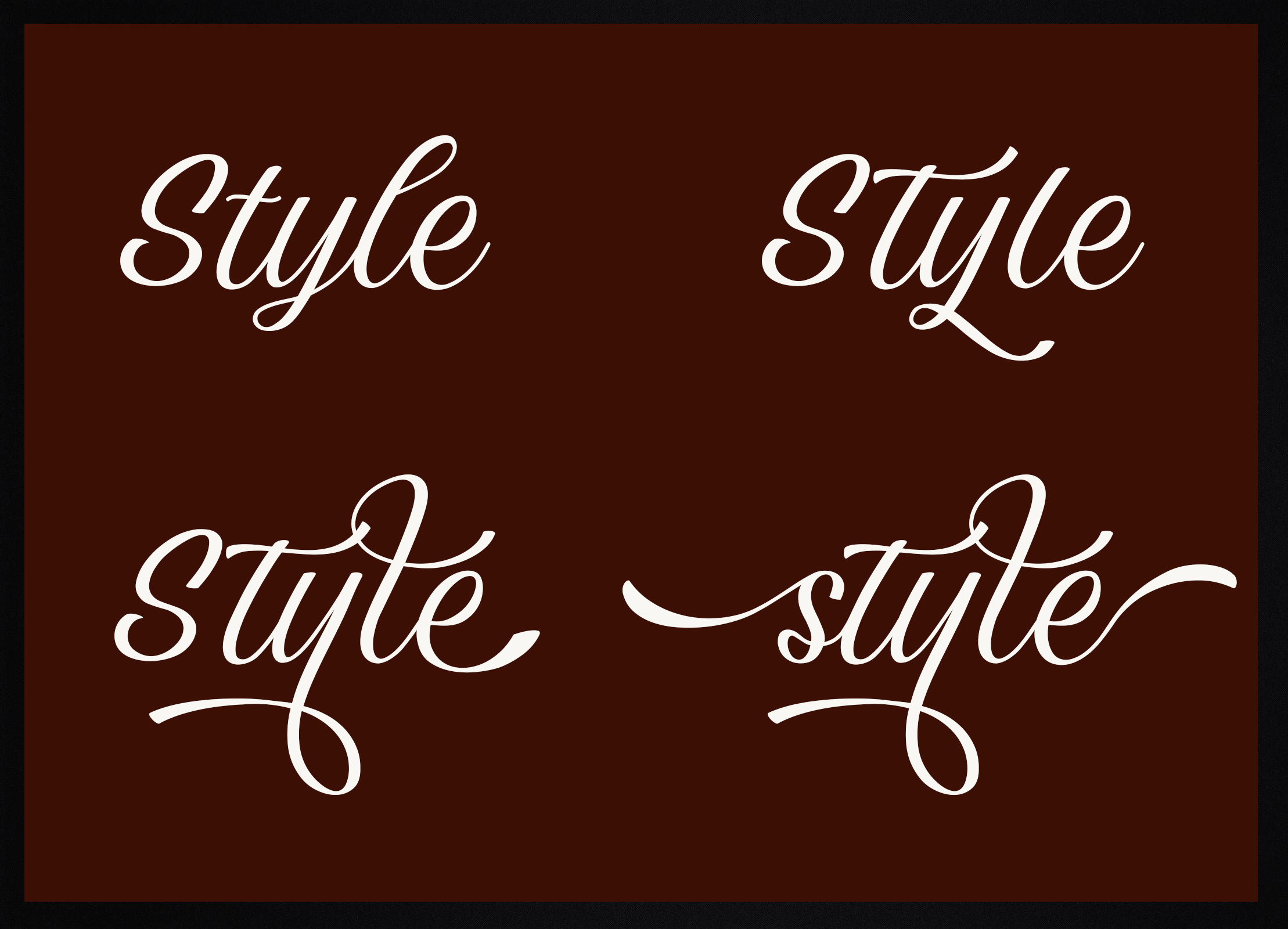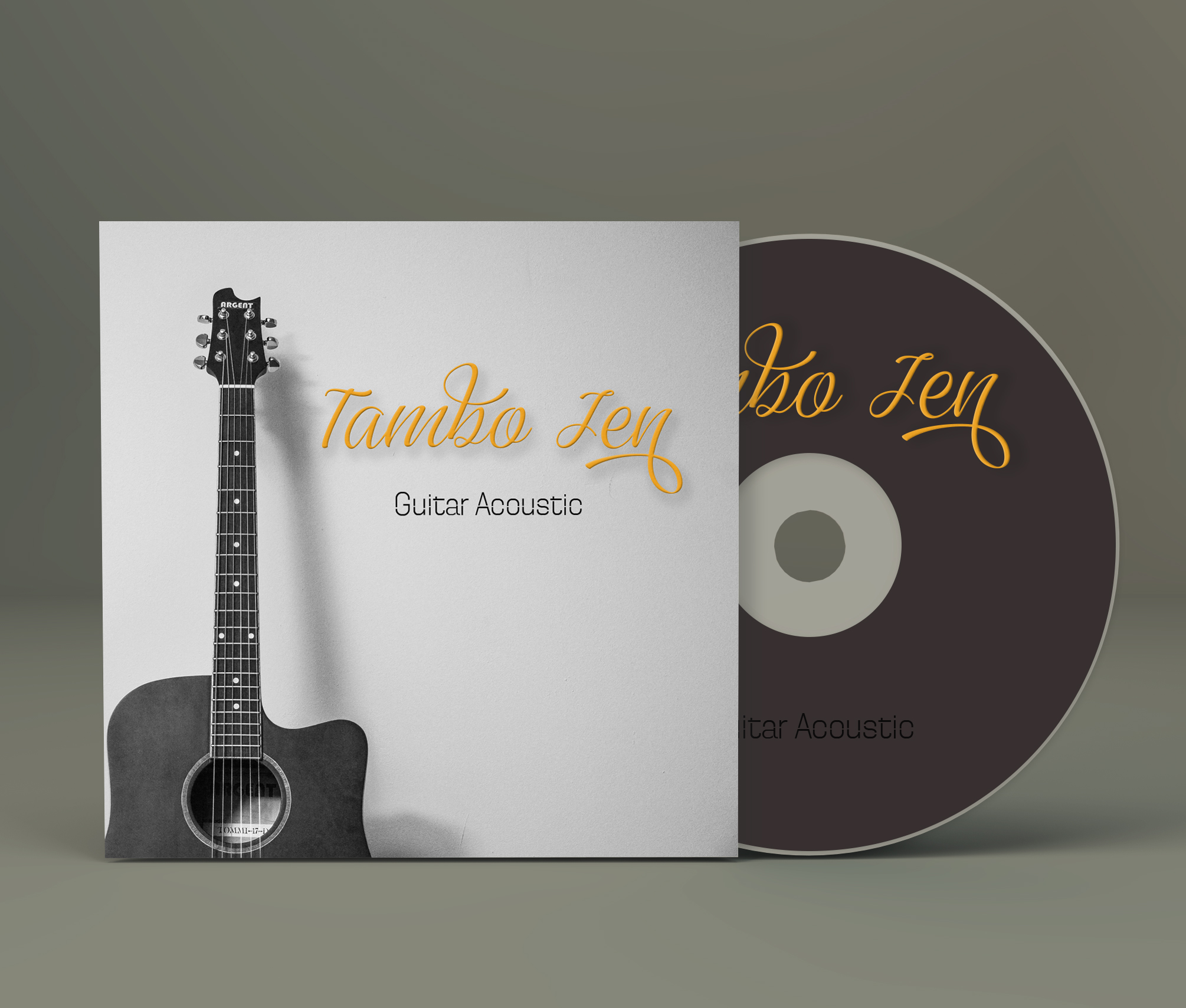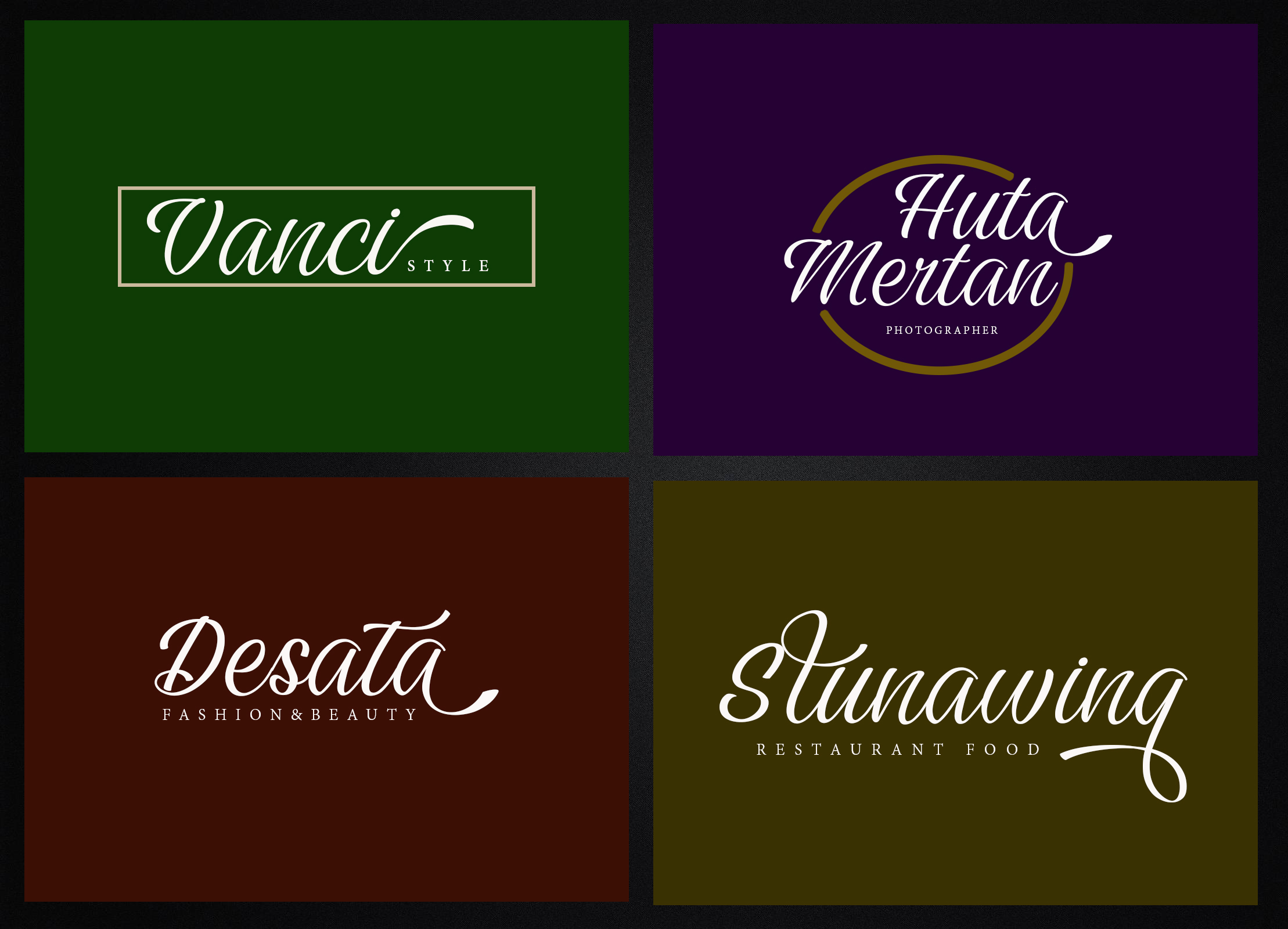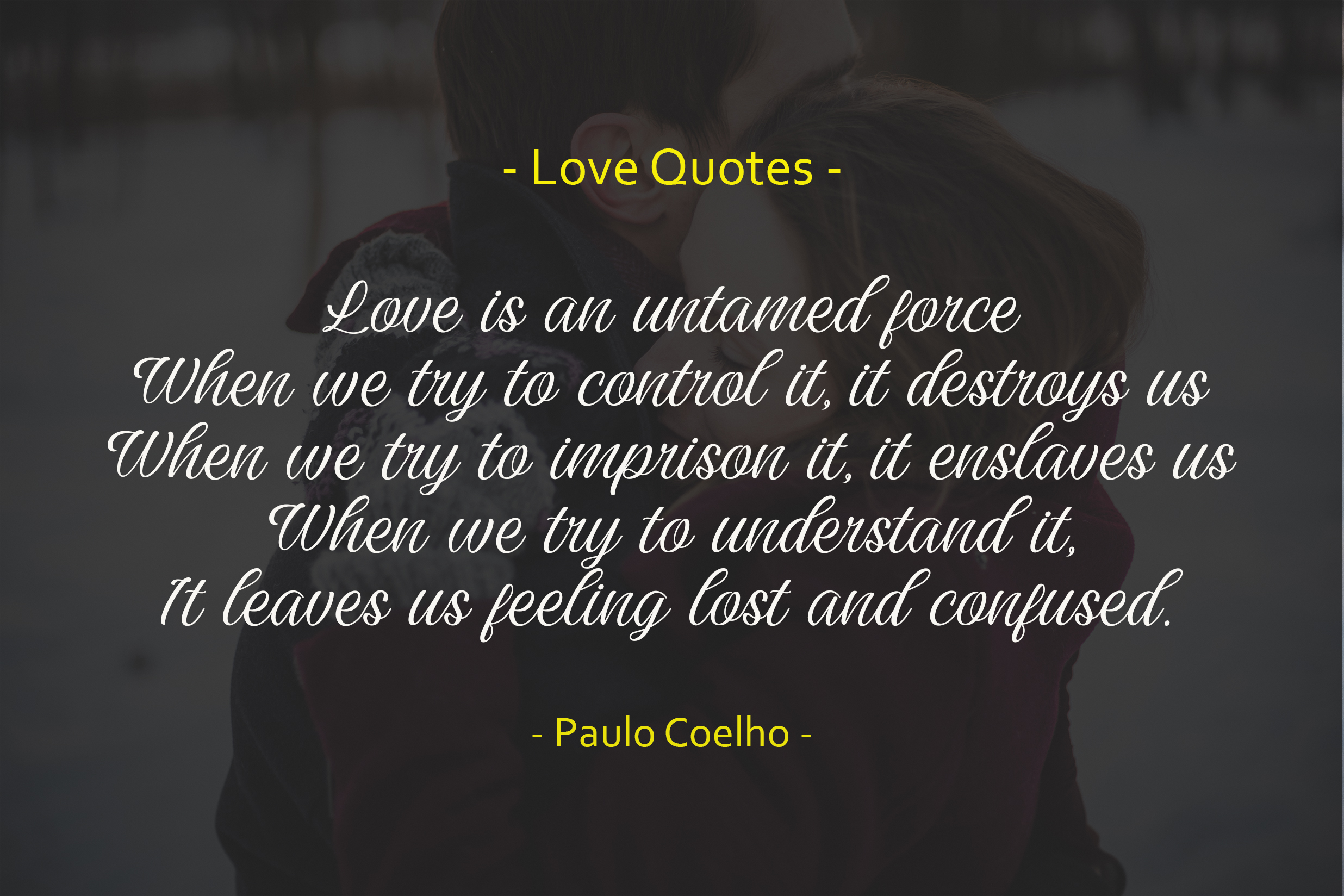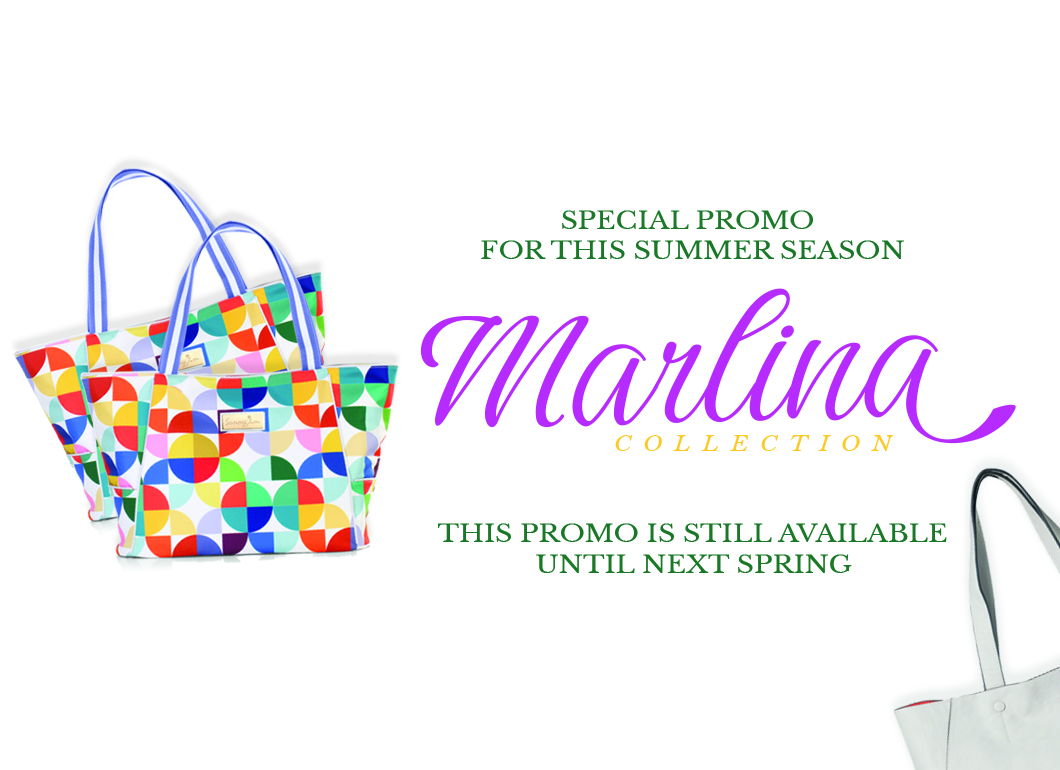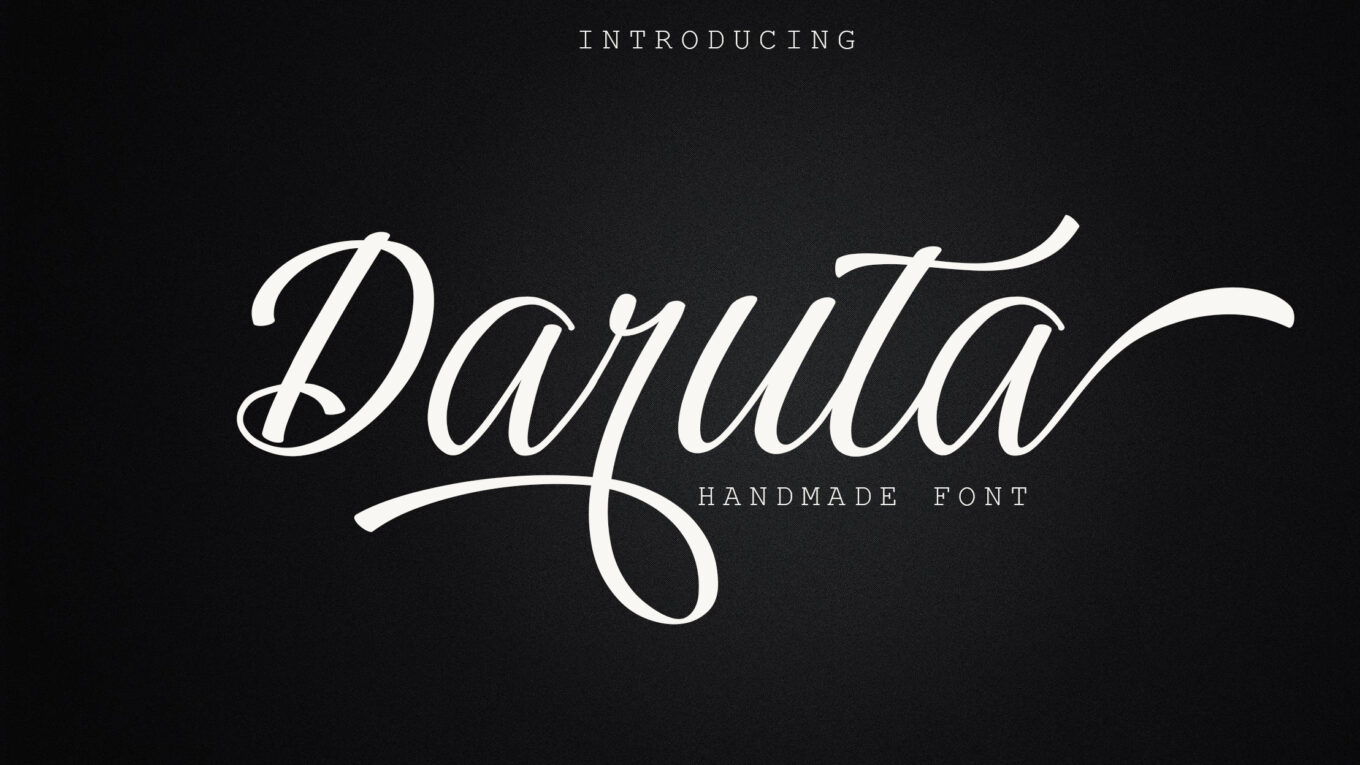
Introducing the Daruta Font: A Fresh Take on Handmade Calligraphy
In the world of typography, few fonts manage to strike a balance between classic elegance and modern flair. The Daruta Font, however, achieves just that. This beautifully crafted font family combines the sophistication of traditional calligraphy with a free-flowing, contemporary look and feel. Whether you’re a designer, crafter, or simply a typography enthusiast, the Daruta Font is sure to captivate you with its unique charm.
The Daruta Script Family: 4 Variations to Suit Every Need
One of the standout features of the Daruta Font is its versatility. The Daruta Script Family comes in four distinct variations: Script, Slant, Bold, and Line Shadow. This range of options allows designers and crafters to choose the perfect style to suit their project, whether it’s a elegant wedding invitation, a bold advertising campaign, or a playful craft project.
- Script: The original Daruta Script, with its fluid, connected letters and classic feel.
- Slant: A slanted version of the script, adding a touch of playfulness and whimsy.
- Bold: A sturdy, bold take on the Daruta Script, perfect for making a statement.
- Line Shadow: A unique variation featuring a line shadow effect, adding depth and dimension.
A Wealth of Glyphs and Alternates
The Daruta Font boasts an impressive array of glyphs and alternates, making it a highly versatile and customizable font. With over 390 unique glyphs, designers and crafters have a vast range of options at their disposal. Additionally, the font includes 8 alternates, such as initial and terminal letters, allowing for even greater creative flexibility.
Multilingual Support
In today’s globalized world, multilingual support is essential for any font. The Daruta Font rises to the challenge, offering support for multiple languages. This makes it an excellent choice for designers and businesses working with international clients or targeting diverse audiences.
The Daruta Font is a dream come true for designers and crafters. Its handmade calligraphy-style aesthetic makes it perfect for a wide range of projects, including:
- Branding and advertising materials
- Craft projects, such as papercraft and scrapbooking
- Digital designs, including social media graphics and blog headers
- Unique blend of classic and modern: The Daruta Font seamlessly combines traditional calligraphy with a fresh, modern look and feel.
- Highly versatile: With four variations, over 390 glyphs, and 8 alternates, the Daruta Font offers endless creative possibilities.
- Multilingual support: Reach a global audience with a font that supports multiple languages.
- Handmade aesthetic: Add a touch of handmade charm to your projects with the Daruta Font’s beautiful calligraphy-style letters.